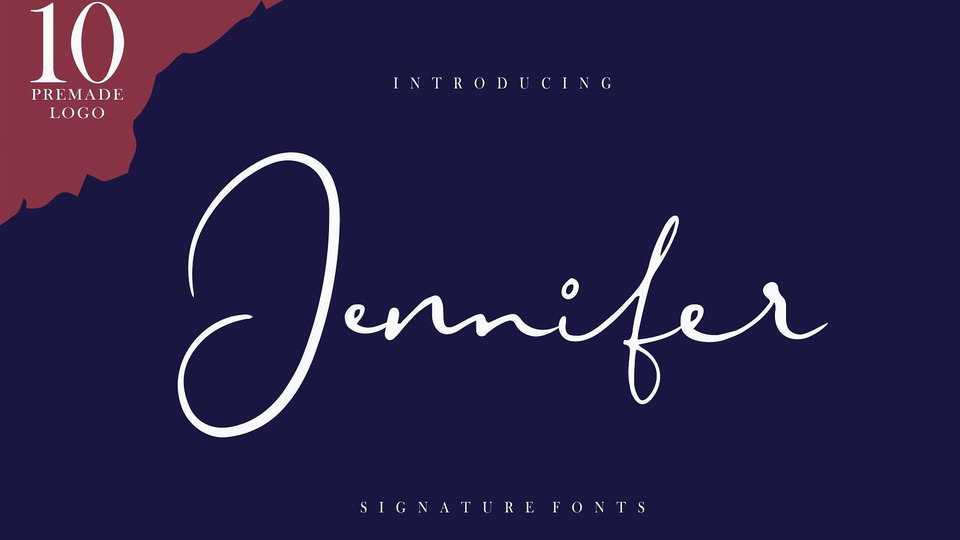
Download Jennifer font, a stylish signature script with natural & modern handwritten flow. Perfect for logo, invitation, stationery, wedding designs, social media posts, advertisements, product packaging, product designs, label, photography, watermark, special events or anything.
Designer: Good Java Studio